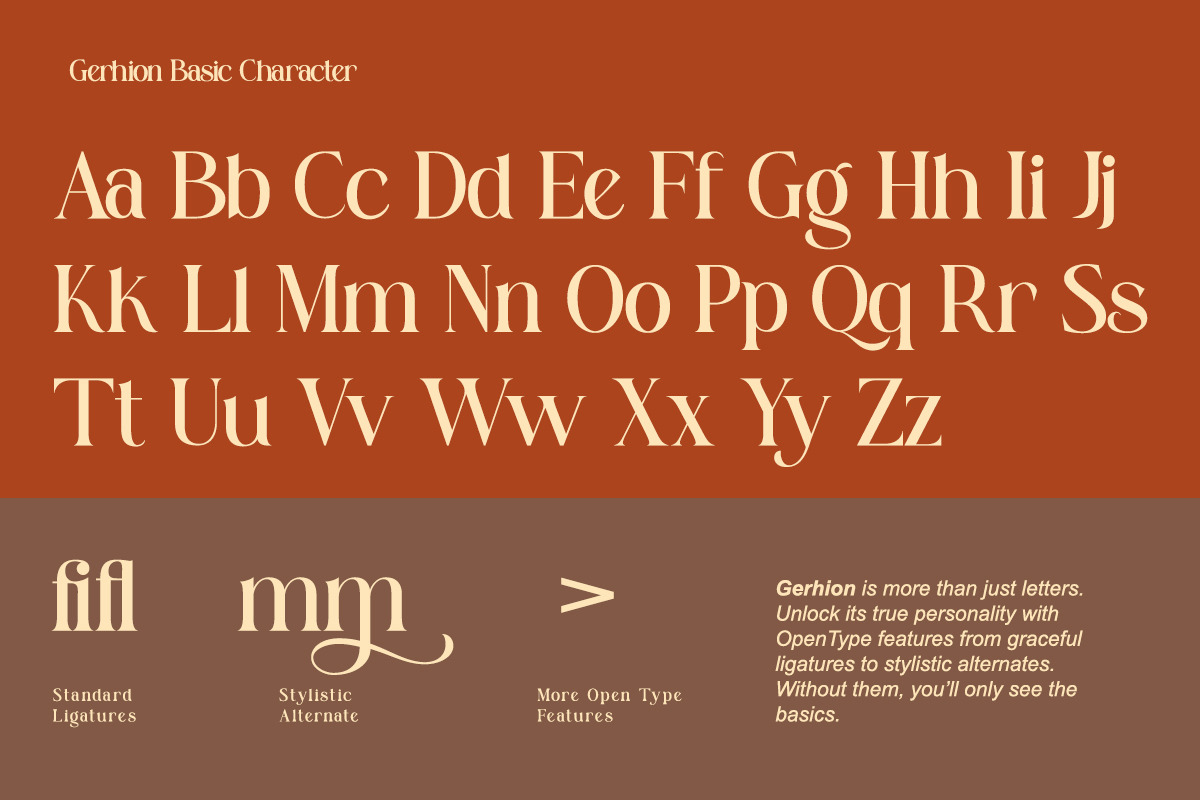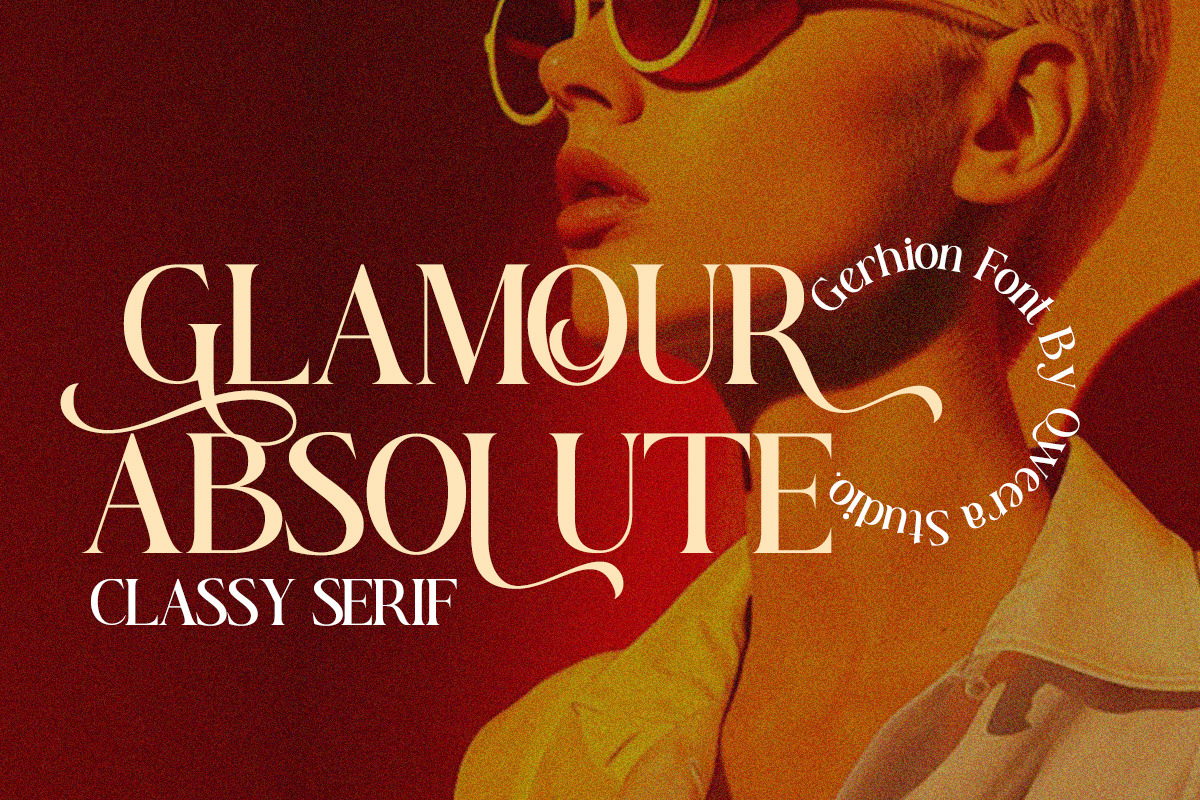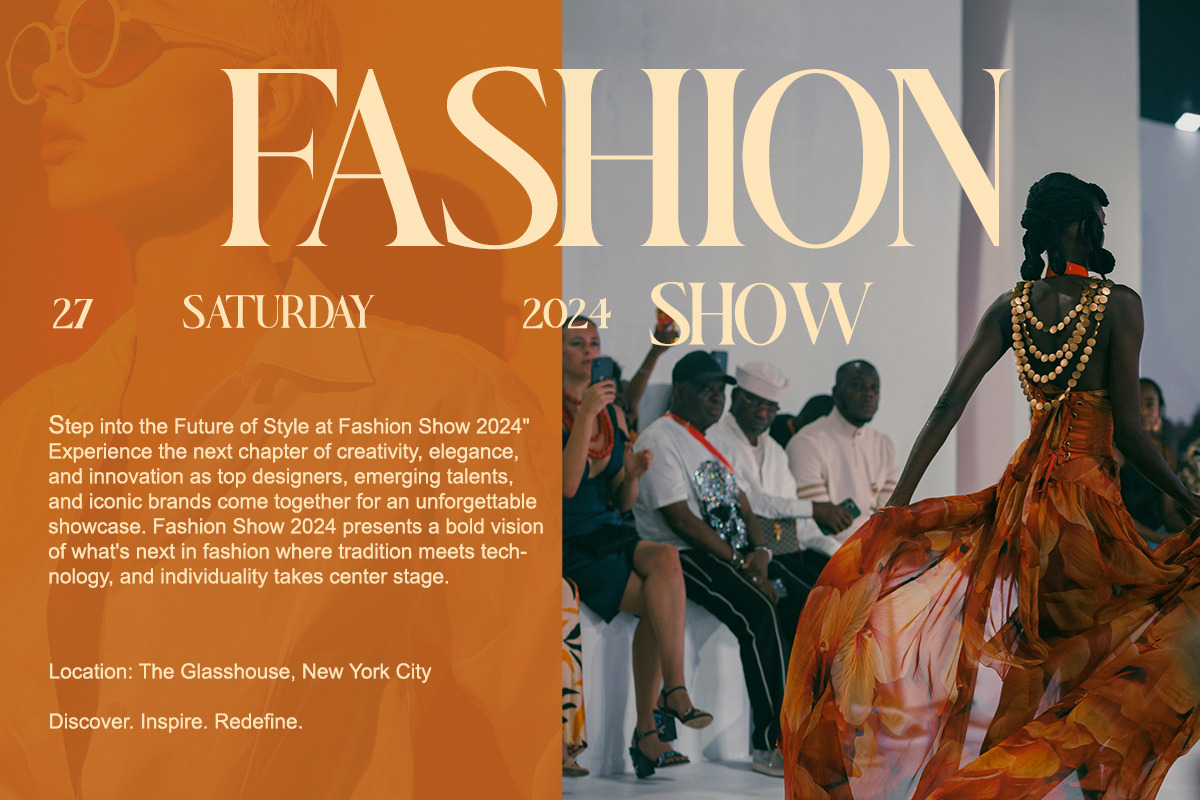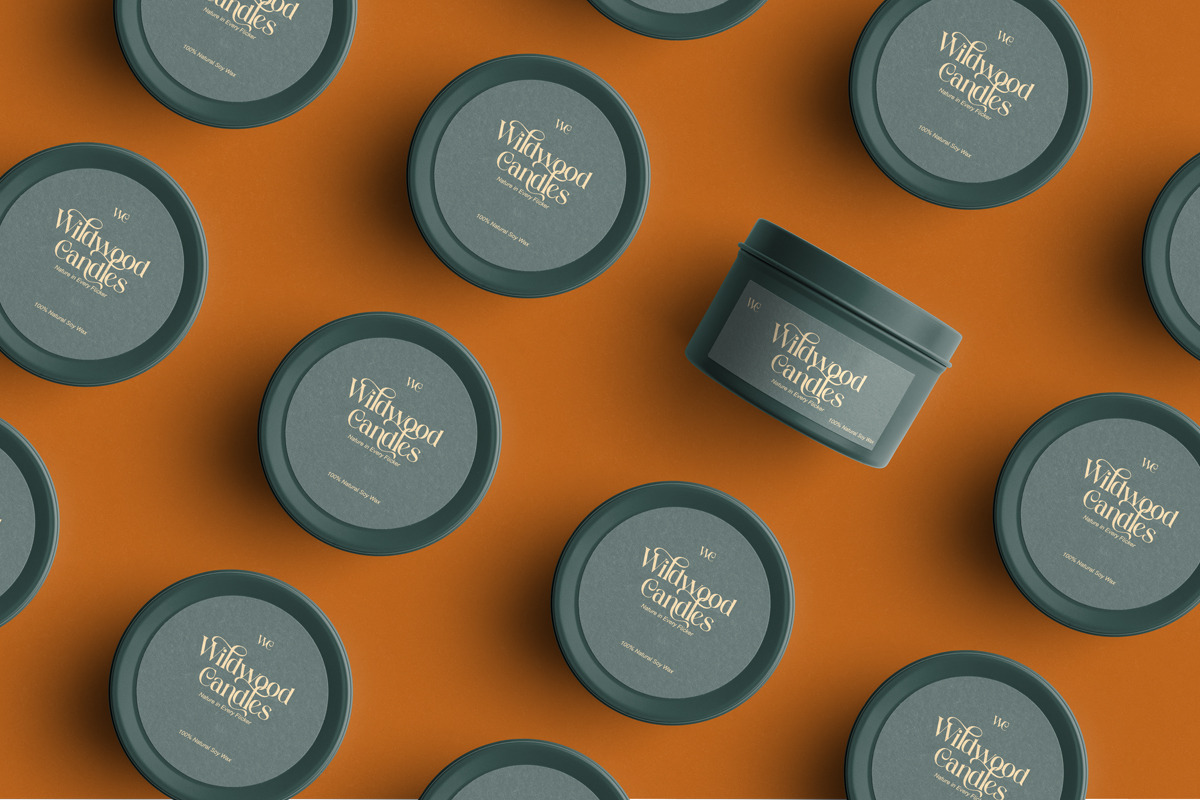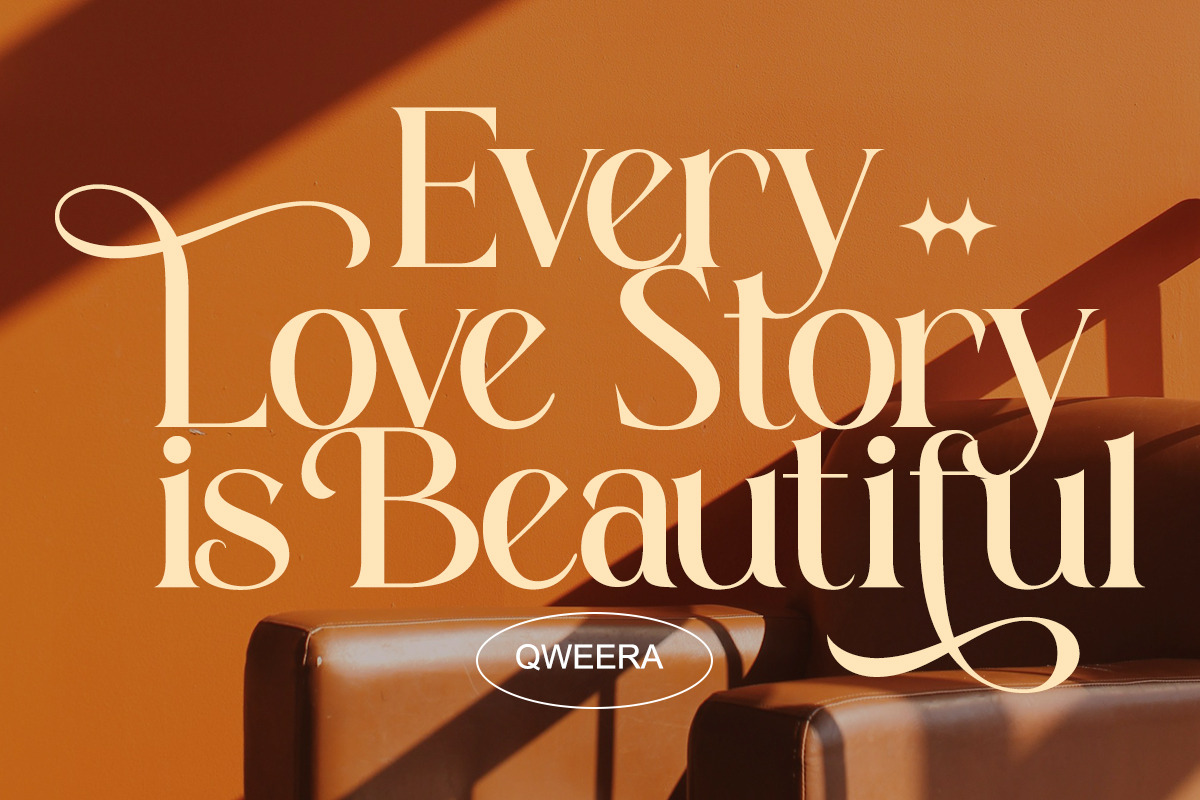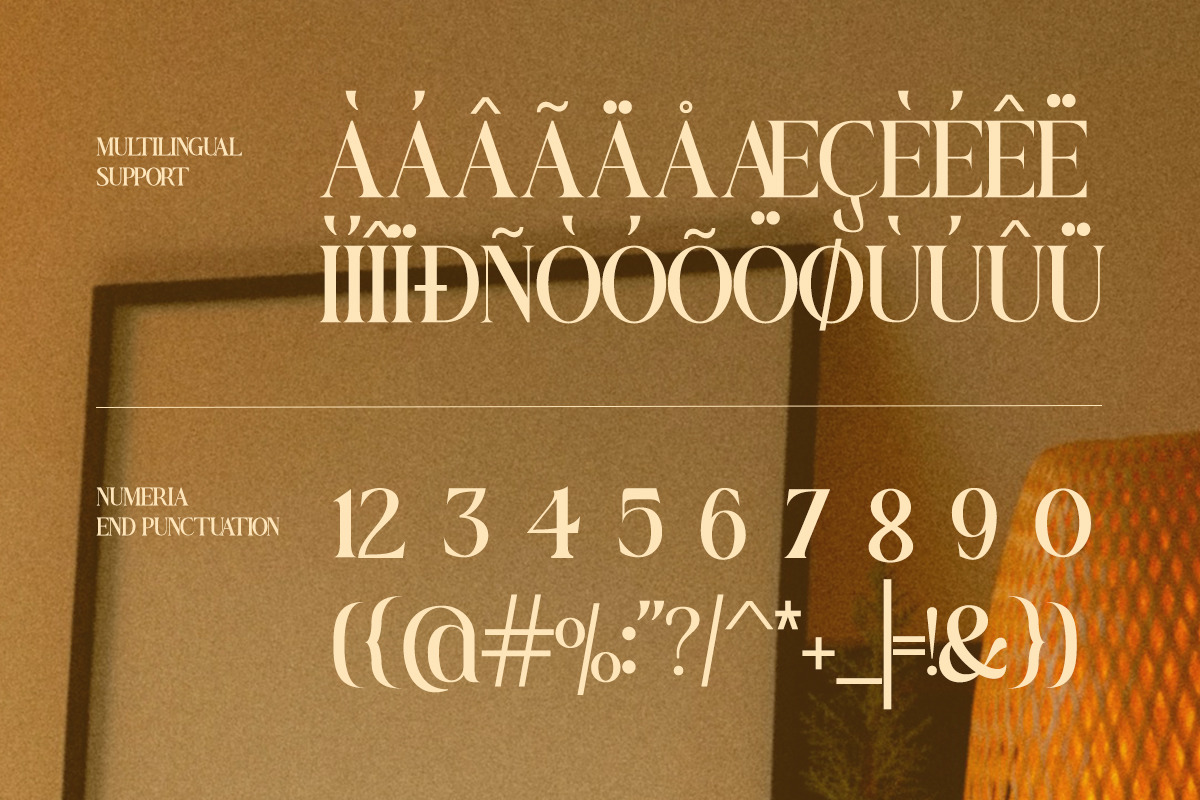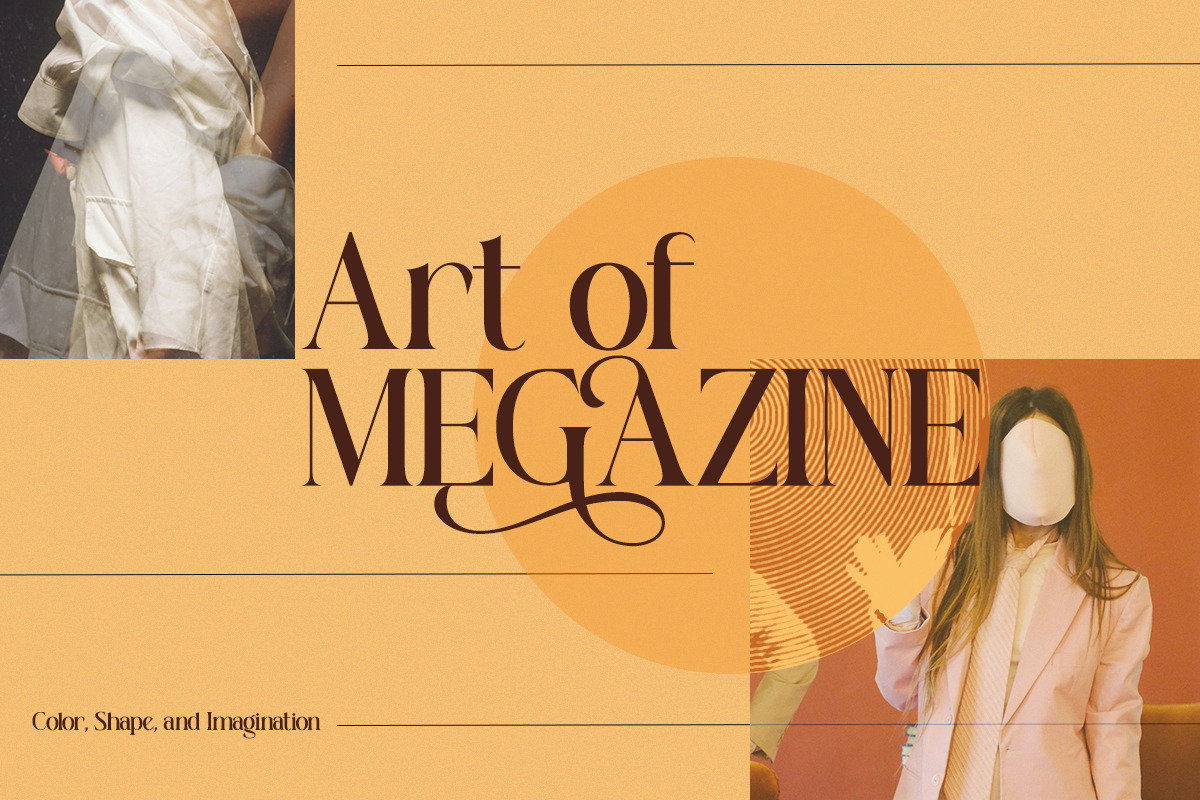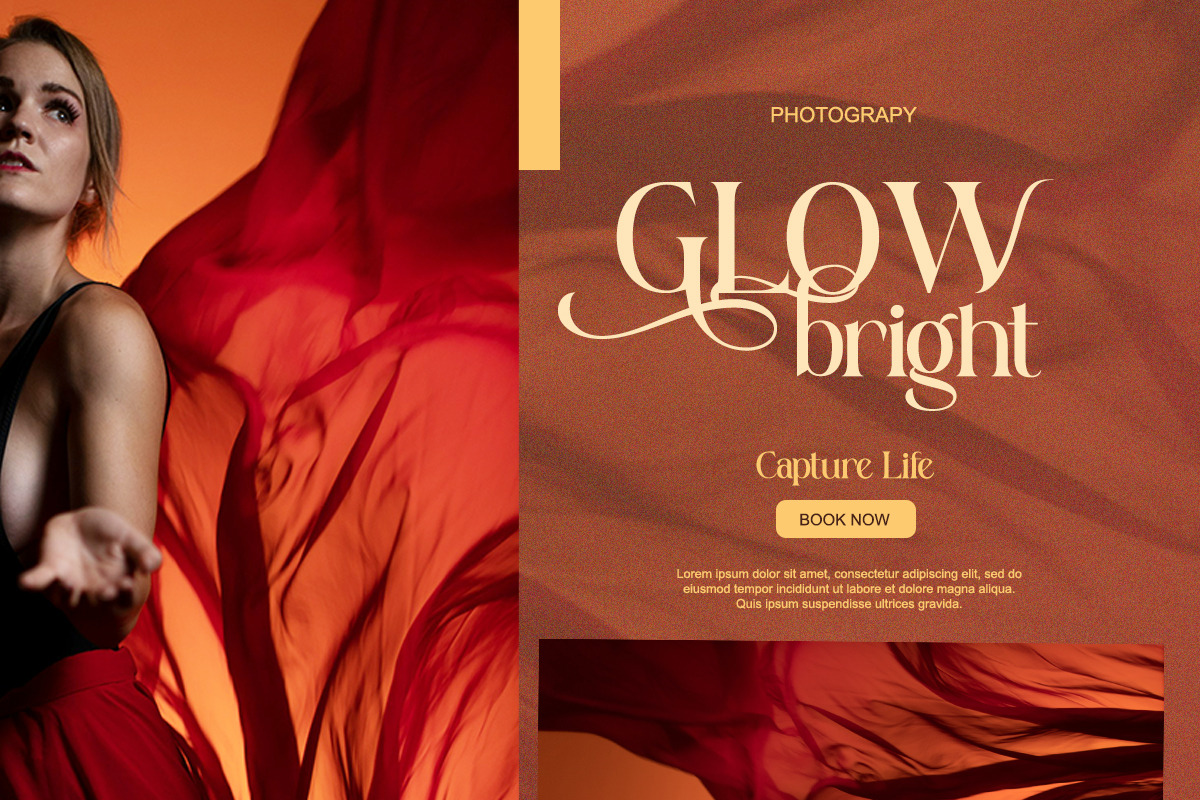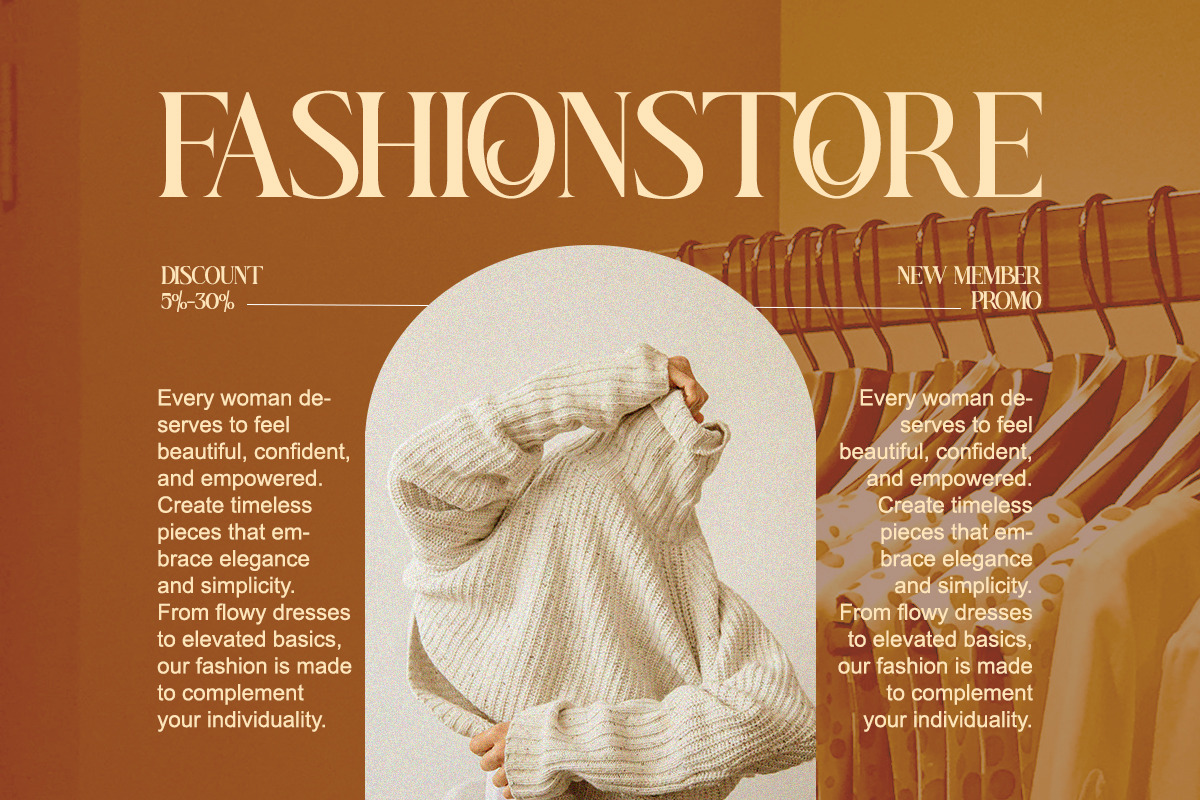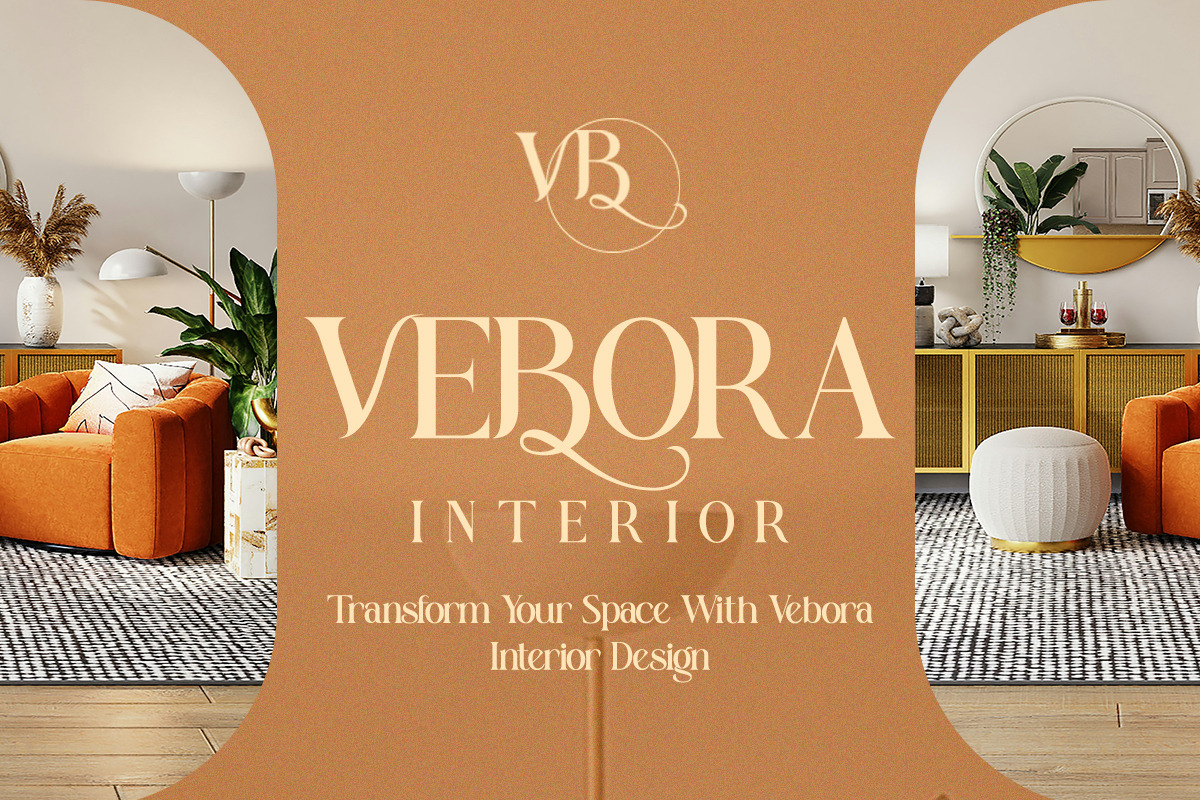
Gerhion - Modern Elegant Luxury
Gerhion is a sophisticated serif font with charismatic curves, flowing swashes, and distinctive alternate characters.
Designed for high-fashion branding and upscale editorial layouts, Gerhion brings graceful energy into every word. Its stylish elegance and flair make it the perfect choice for designers who want luxury, expression, and timeless style in their visuals.
Use Gerhion to elevate your brand identity, wedding suite, portfolio showcase, or packaging concept — all with a refined twist.
- Regular & Italic
- Unique stylistic alternates
- Beautiful swashes & ligatures
- Luxury fashion branding
- Magazine editorial titles
- Wedding logo & stationery
- Elegant quotes & headlines
- Social media content
- Premium product packaging
Gerhion adds emotion, movement, and class to every design.